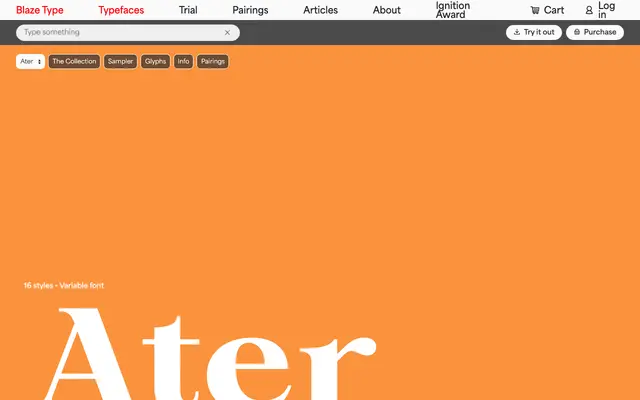
Ater
Blaze Type · Nicolas Dupuis · 2025
Ater specimen from Blaze Type
A variable serif by Nicolas Dupuis spanning eight weights from Extralight to Black, built for both text and display use with high contrast between its extremes.
Designed to work across both body text and large-scale display applications, the family draws on classic serif models while leaning into contemporary forms. The variable file allows letter blackening that pushes the darkest styles towards display territory, creating a deliberate tension between legibility at small sizes and graphic weight at large ones. The name references the Latin word for matte black, gesturing at the family's appetite for filling a white page.
Ater blends classic serif proportions with contemporary display tendencies, featuring high contrast between its finest and darkest weights. The foundry describes it as drawing from classic serif typefaces while embracing more contemporary forms, which aligns with a transitional approach.